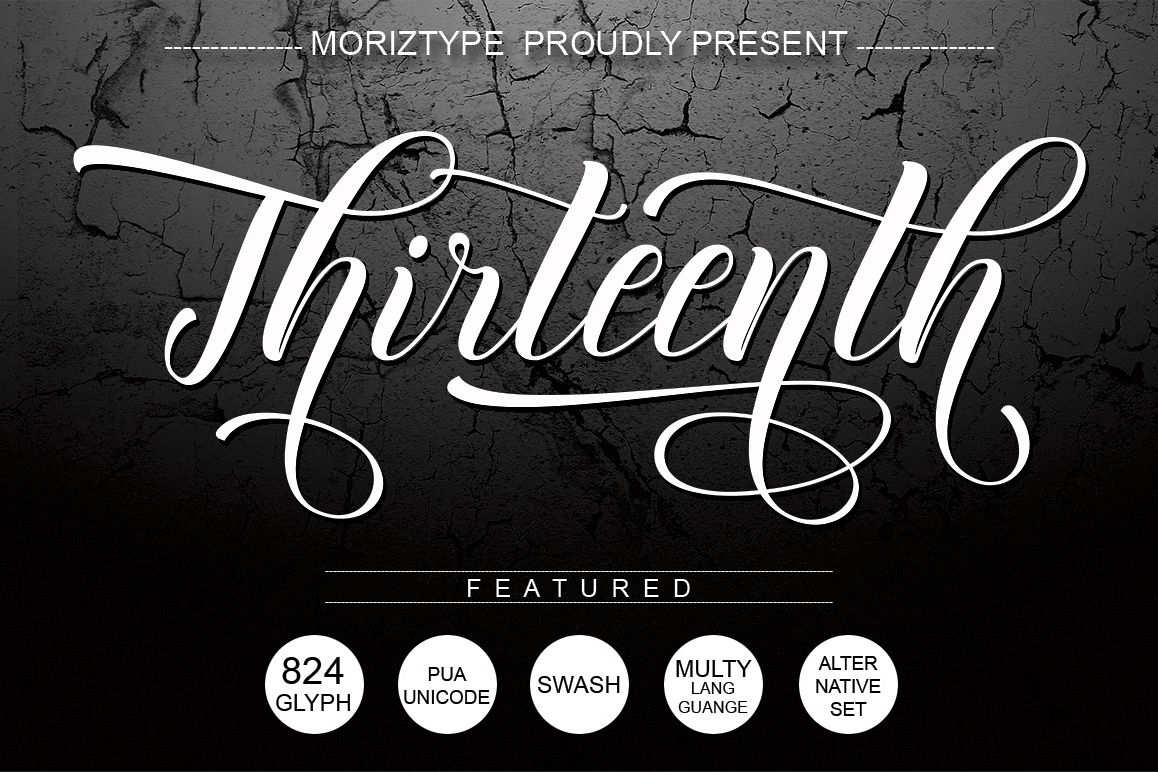
Thirteenth Script
INTRODUCING THIRTEENTH SCRIPT PROUDLY PRESENT BY MORIZTYPE STUDIO
Thirteenth Script - a new fresh & modern script
with a handmade calligraphy style, decorative characters and a dancing
baseline! So beautiful on invitation like greeting cards, branding
materials, business cards, quotes, posters, and more!
Thirteenth Script come with 824 glyphs. The
alternative characters were divided into several Open Type features such
as Swash, Stylistic Sets, Stylistic Alternates, Discretionary
• Initial Alternates
• Discretionary Ligatures
• Standard ligatures
• Stylistic sets 1-26
• Basic Latin A-Z and a-z
• International Symbols Support